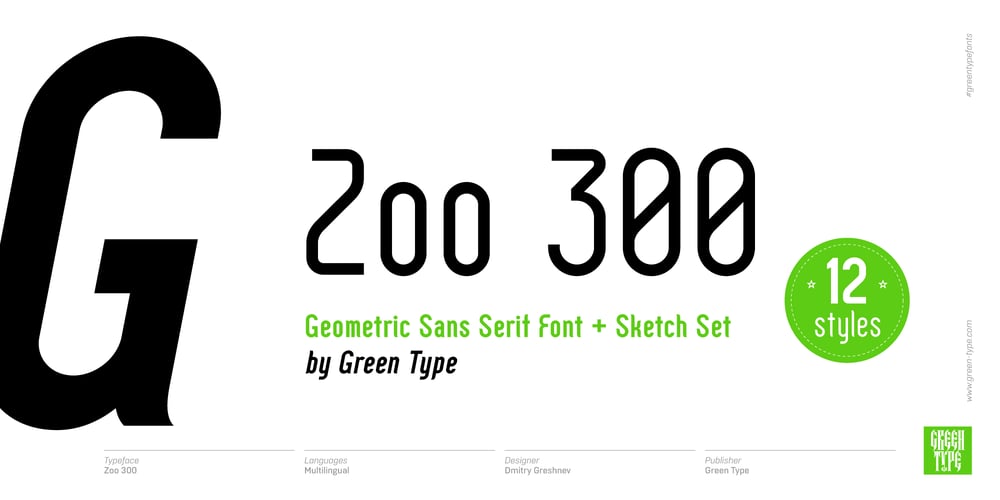
Zoo 300
Zoo 300 font
Zoo 300 Font Family was designed by Dmitry Greshnev and published by Green Type. Zoo 300 contains 12 styles and family package options. The Zoo 300 font family was designed by Dmitry Greshnev and published by Green Type.It is a geometric sans-serif font. Zoo 300 contains 8 standard styles and 4 additional decorative handwritten sketch styles.